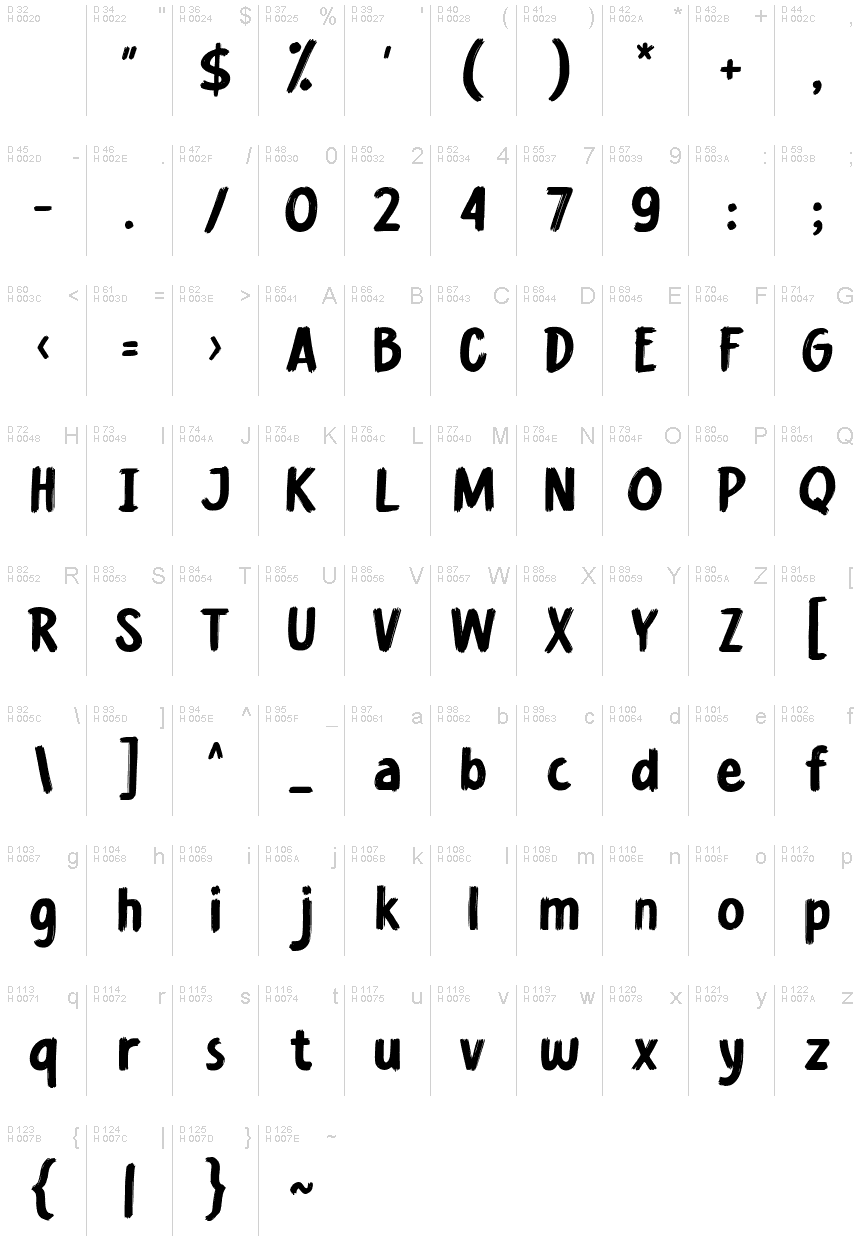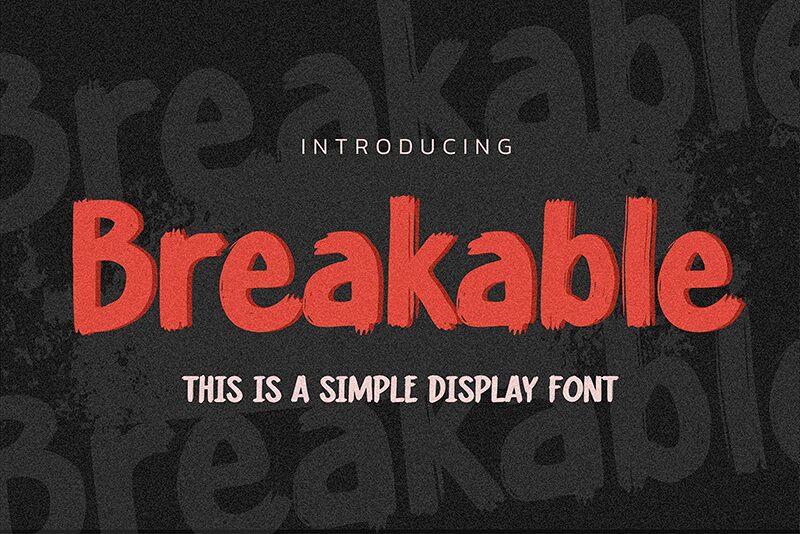
Breakable
Breakable by Gassstype emerges as a bold brush font that encapsulates the essence of modernity with a twist of casual flair. Its dramatic movement and textured appeal give it an authentic, handcrafted feel perfect for creative endeavors seeking an infusion of personality and fun. The distinctive style of Breakable makes it a prime choice for projects that range from eye-catching labels to vibrant posters, ensuring your design stands out with its natural charm.
The versatility of this simple display font shines through in its suitability for an array of purposes - branding, packaging, or even digital overlays on photography. Embrace the spirited character of Breakable in your DIY projects, greeting cards, websites or scrapbooking ventures to add a touch of the unique and unexpected. With its modern style and bold weight, Breakable is set to elevate your creative project with an air of originality that feels both contemporary and timelessly appealing.